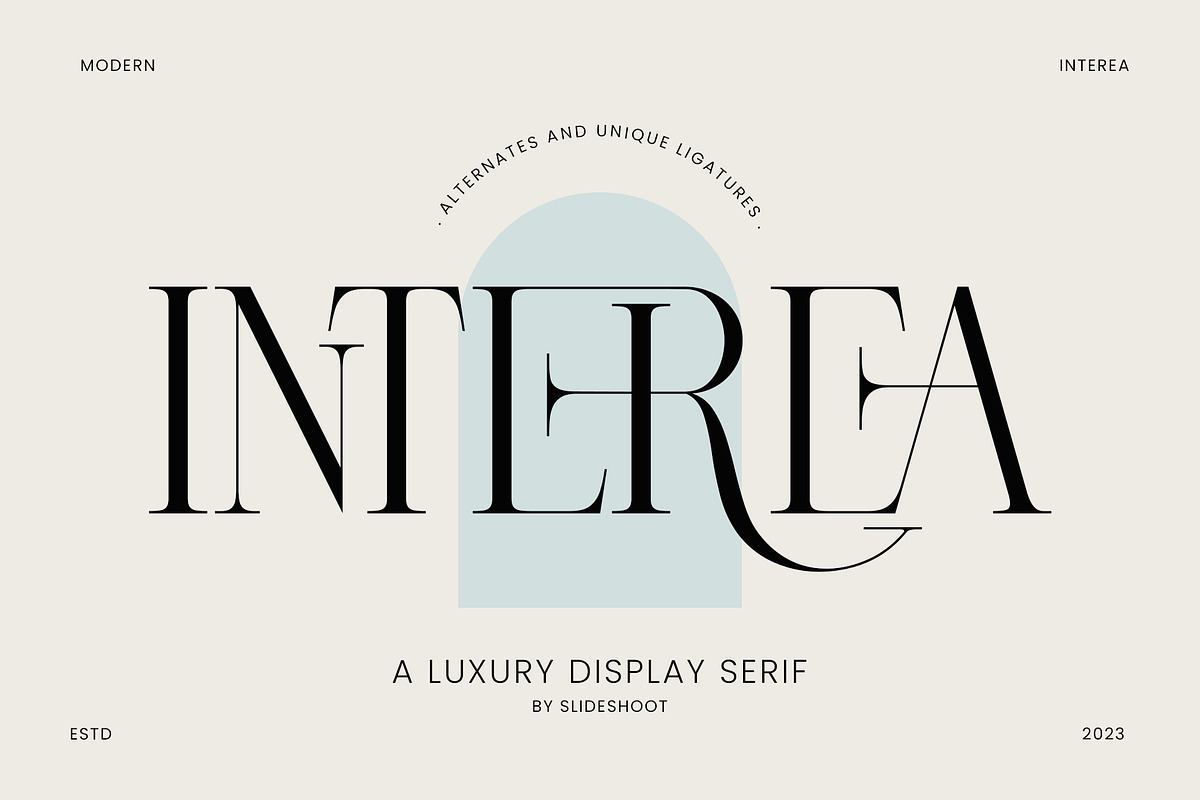
Interea A Luxury Serif Font Free Download
Interea - A Luxury Serif Font Free Download
Please note, you must purchase this font for commercial use. However, you can easily download Interea - A Luxury Serif Font Free Download for personal use and testing purposes. Interea - A Luxury Serif Font is a sophisticated and elegant serif typeface designed to bring a touch of class and refinement to any design. Perfect for luxury branding, high-end editorial layouts, invitations, and logos, this font combines timeless serif elements with a modern, clean aesthetic. Its well-crafted letterforms make Interea - A Luxury Serif Font Free Download ideal for upscale projects that require both readability and style. Whether you’re working on a premium brand identity, a chic event invitation, or a luxurious product label, this font will elevate your typography. Download Interea - A Luxury Serif Font Free Download today and explore its potential before opting for a commercial license.